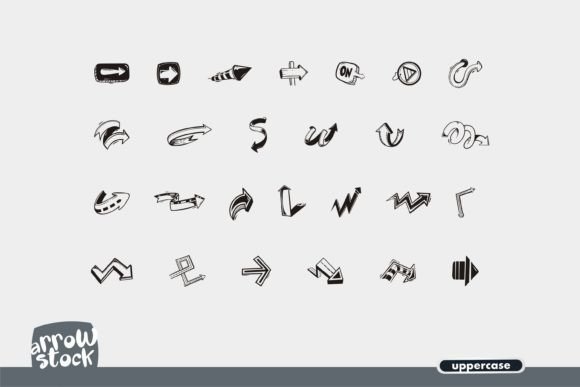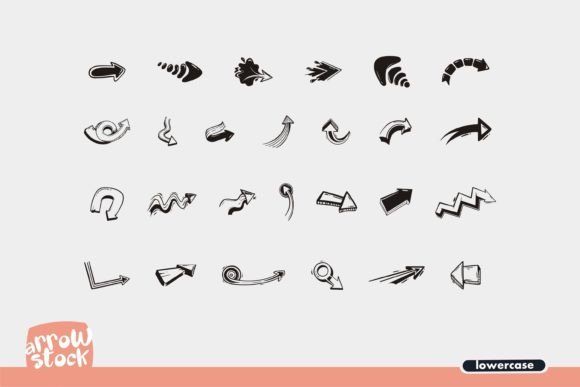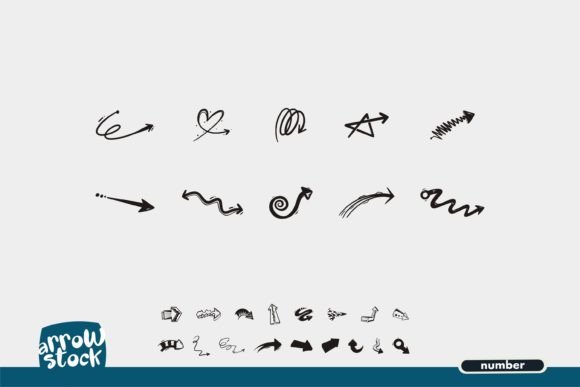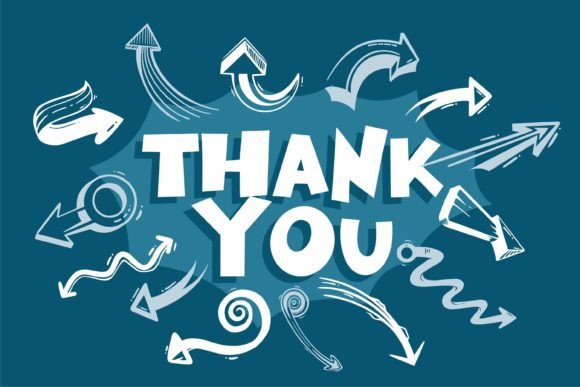
The Ultimate Guide to Arrow Stock Font: Adding a Playful Touch to Your Designs
I’ll never forget the time I was working on a design project for a client who wanted a fun and quirky touch. I had spent hours browsing through font libraries, but nothing seemed quite right. That’s when I stumbled upon Arrow Stock, a playful dingbat font that completely transformed my design. In this article, I’ll share my experience with Arrow Stock, its features, and how to make the most of it in your designs.
What is Arrow Stock Font?
Arrow Stock is a hand-drawn dingbat font designed to add a playful touch to your designs. These charming glyphs can be used for a variety of purposes, from decorating designs to planning projects. With Arrow Stock, you can add a unique and creative element to your work, making it stand out from the crowd.
My Honest Review of Arrow Stock Font
I’ve had the pleasure of working with Arrow Stock, and here’s what I think:
- ✨ Unique and playful design: Arrow Stock’s hand-drawn glyphs are truly one-of-a-kind, adding a touch of personality to any design.
- 💡 Versatility: Arrow Stock can be used for a wide range of projects, from graphic design to crafting and planning.
While Arrow Stock is an excellent font, there are a few quirks to be aware of:
- 🤔 Limited character set: As a dingbat font, Arrow Stock has a limited character set compared to traditional fonts.
- ⚠️ Requires OpenType features: To get the most out of Arrow Stock, you’ll need to use it with software that supports OpenType features.
The Story Behind Arrow Stock Font
Arrow Stock was designed by a team of creative designers who wanted to create a unique and playful font that would add a touch of personality to designs. Inspired by the world of dingbat fonts, they crafted a font that would be both fun and versatile. With Arrow Stock, you can add a creative element to your designs, making them stand out from the crowd.
| Author | onoborgol |
| What is Arrow Stock font? | Arrow Stock is a hand-drawn dingbat font designed to add a playful touch to your designs. |